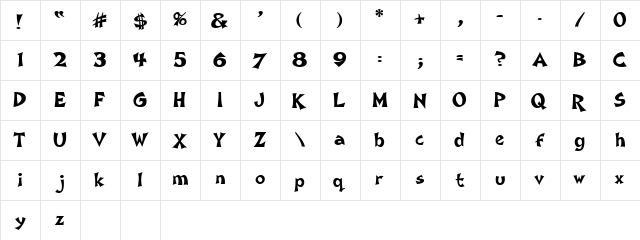
Loose Cruse Bold
Design Context for Loose Cruse Typeface
Loose Cruse is a composed and adaptable typeface that performs quietly and consistently across a wide range of design contexts. The heavy weight commands attention and anchors typographic hierarchies.